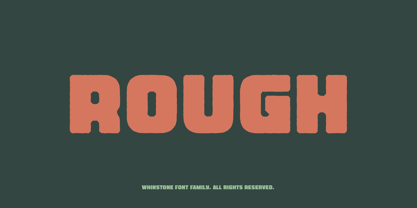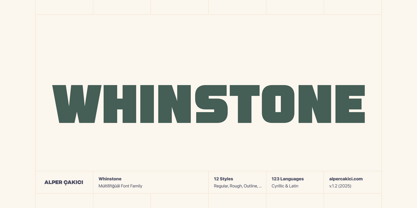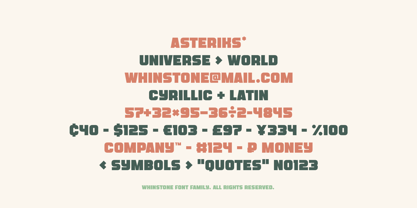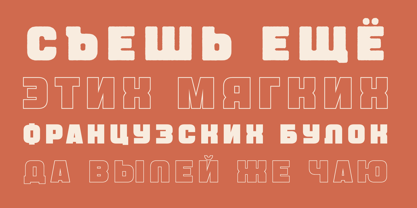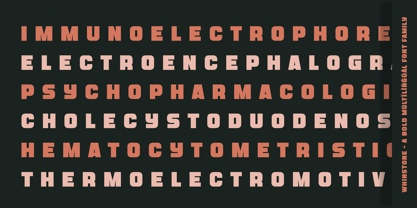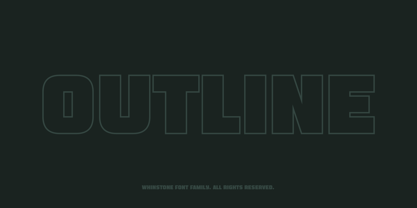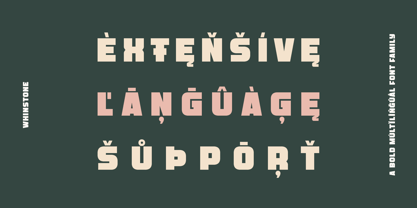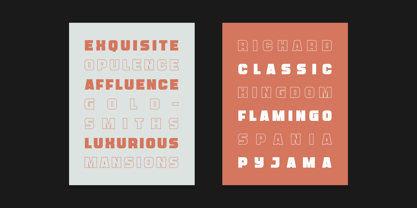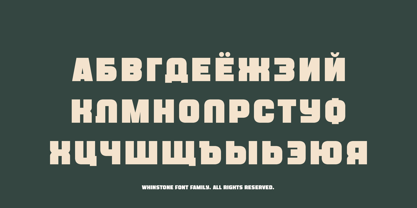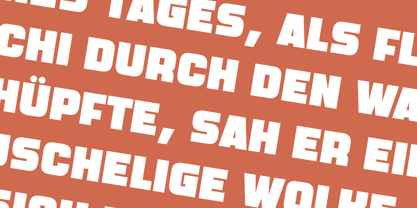
Whinstone
by AlperCakici
The Whinstone Font Family was designed by Alper Çakıcı and published by AlperCakici. Whinstone contains 12 styles and family package options. More about this family
Whinstone is a striking geometric sans serif font family built for impact and versatility. With 12 bold styles—including Regular, Rounded, Rough, Outline, and matching Italics—Whinstone delivers confident, modern typography for branding, posters, logos, and editorial design. Supporting 123 languages, including full Cyrillic, it combines sharp geometry with strong legibility across print and digital media. Whether you’re crafting a headline that demands attention or shaping a sleek visual identity, Whinstone stands as a pillar of bold, contemporary design.
Designers: Alper Çakıcı
Foundry: AlperCakici